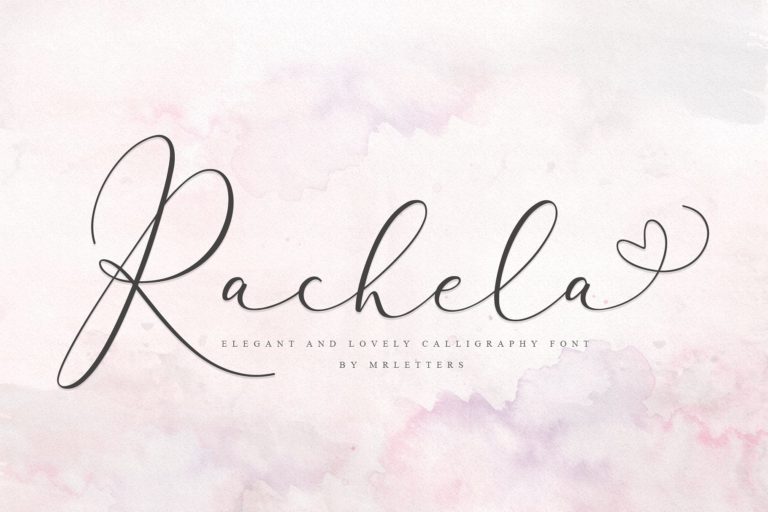
Rachela Script Font
A elegant and lovely calligraphy font. Introducing Rachela Font! It is designed and shared by MrLetters. Rachela a new and beautiful font, created to meet your needs in creating a beautiful and elegant design, this font is special for you. Rachela font is perfect for branding, wedding invitations, magazines, mugs, business cards, quotes, posters, and more you can use on your big project would be very beautiful.